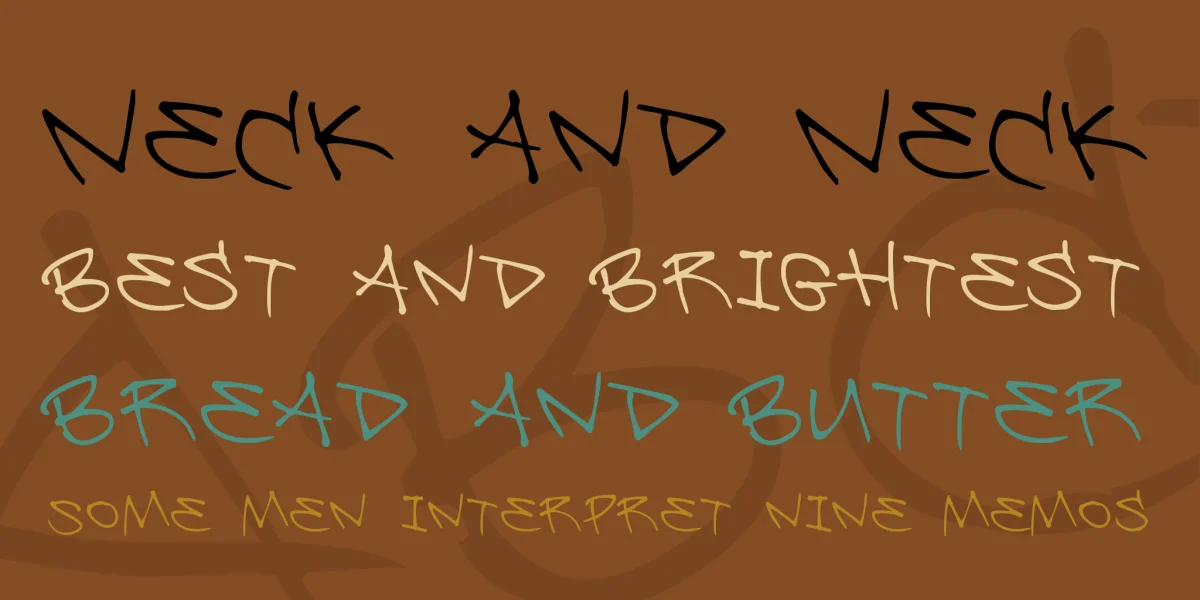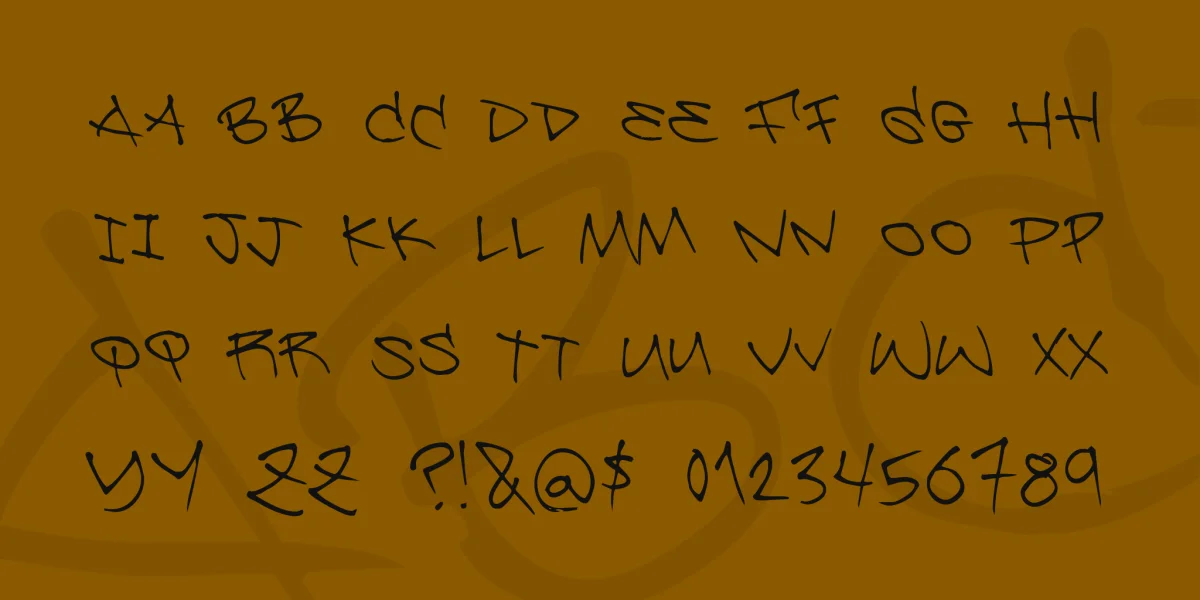
Be Aggressive is the latest freewarefont at pizzadude.dk
A hardneck tagfont that really has got nothing to do with being aggressive but aggressive writing!
The font was named after that song by Faith No More.